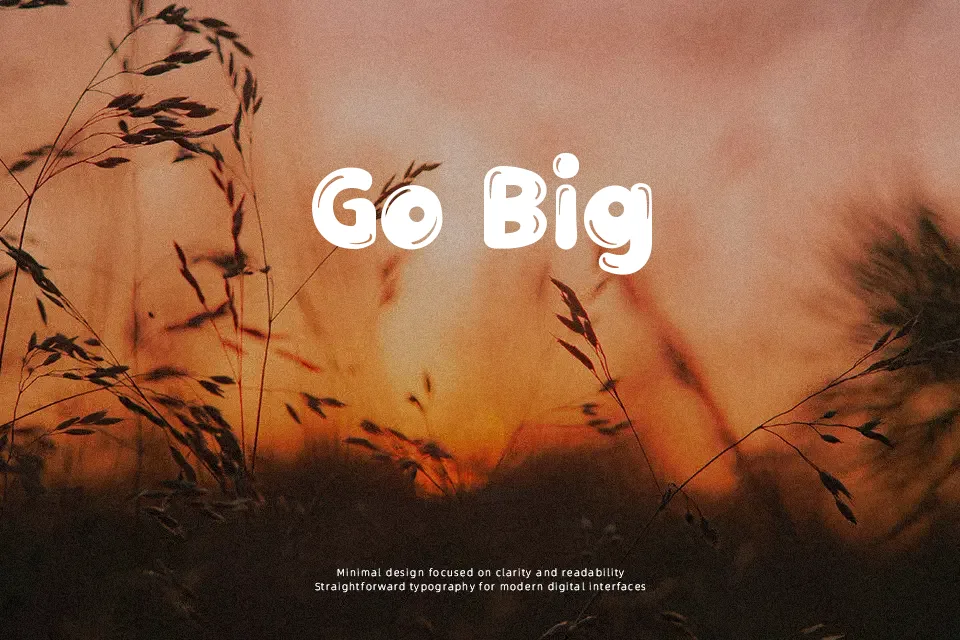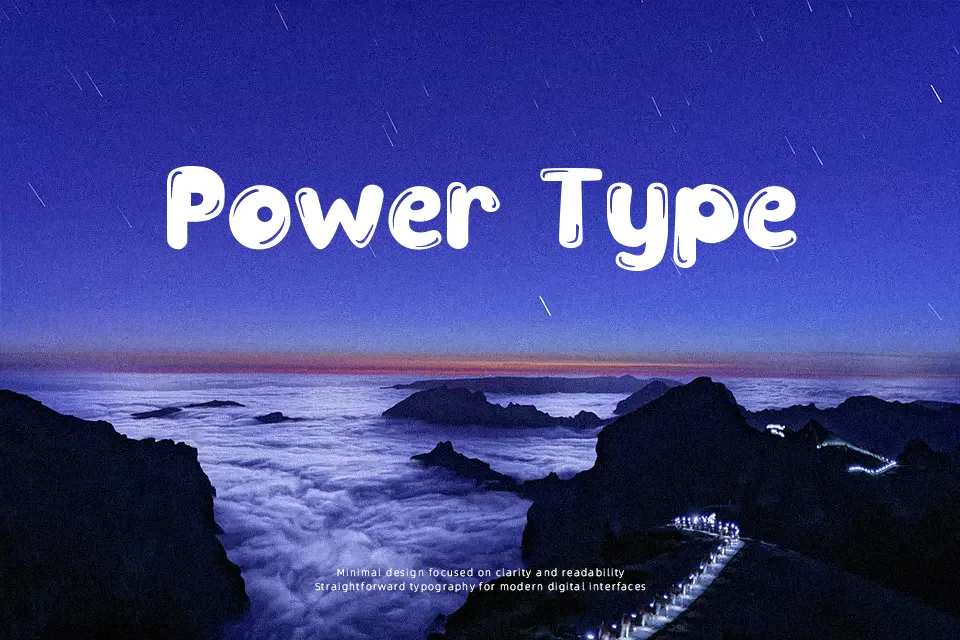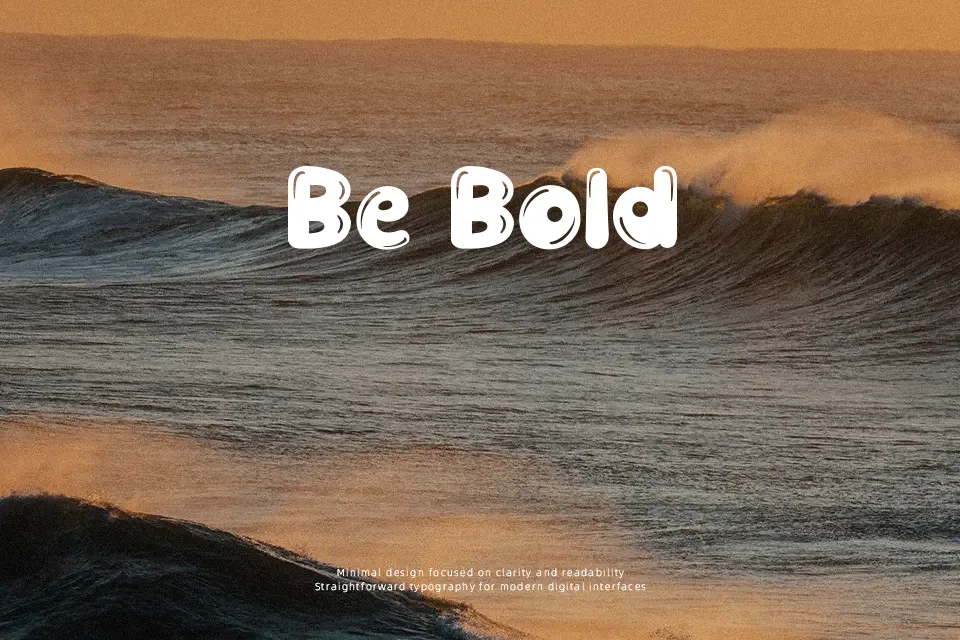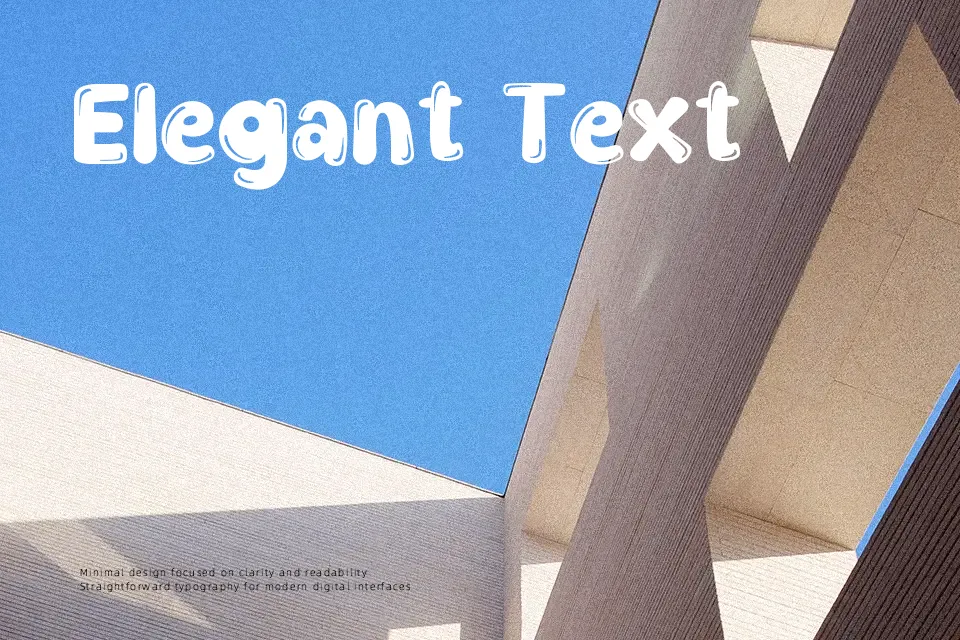
Shiny Balloon Font
Shiny Balloon Font delivers an ultra-bold display presence defined by bulbous, air-filled contours and distinct cutout highlights that mimic reflective surfaces. Each letterform maintains a hefty, uniform weight with deeply rounded corners, creating tight inter-character rhythm even in short phrases. Proportions remain consistently wide across both uppercase and lowercase sets, ensuring instant visual impact in poster headlines, children’s book titles, and confection packaging. However, the sheer density of the inflated strokes and compact interior counters significantly reduce legibility at small sizes, making the typeface unsuitable for continuous reading or multi-line paragraphs. The heavy decorative treatment provides exceptional standout power when kept to brief, isolated header text.
kids party invitations, toy packaging, festival banners, animation title cards
continuous body text, corporate annual reports, mobile navigation labels, dense editorial layouts
Perfect for headline, invitation, and kids, with a bold and cartoon style.